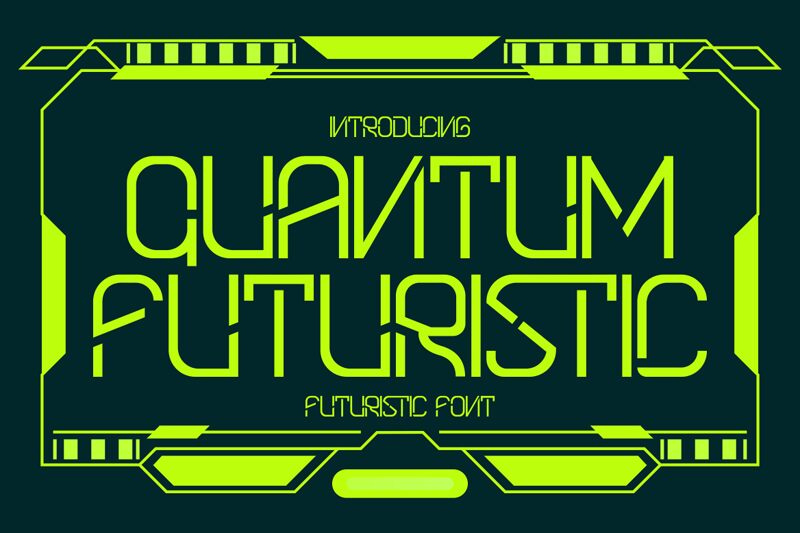
Quantum Futuristic font family by PutraCetol Studio represents a techno style that draws inspiration from scientific concepts. Making use of different elements, the free font family offers versatility and options when creating advanced designs. There are multiple styles available with the family, and with them, creatives can introduce a futuristic design that shocks its environment.
Create projects that go hand in hand with the universe that’s long been in existence. And since each collection of letters and numbers shares the same vibe, which are all designed with precision, you can utilize them for modern advertisements or make your next book cover an iconic one presenting readers with a trip to the moon and more.